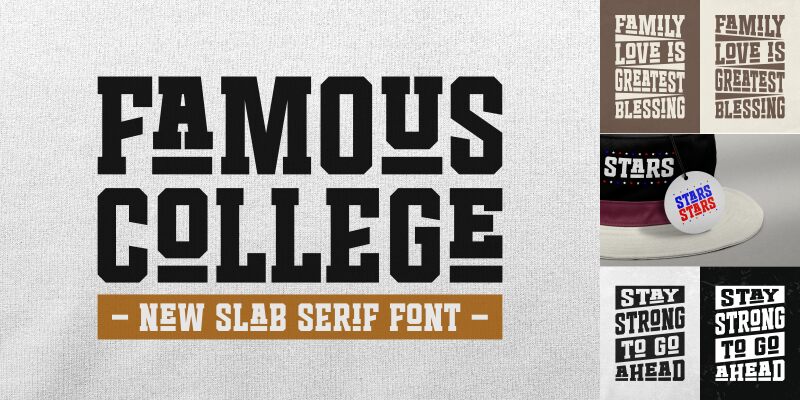
Famous College Italic
Famous College Italic font from the Famous College family exudes a nostalgic charm that harkens back to traditional academic aesthetics. Designed by 7NTypes, this display typeface captures the essence of old-school elegance with its striking italic style.
Its condensed form creates a sense of urgency and dynamism, making it visually appealing while maintaining readability. The bold letters carry a sophisticated flair, perfect for any application needing a touch of classic yet contemporary vibrancy.
Ideal for sports teams, educational institutions, and retro-themed designs, Famous College Italic adds character and distinction to posters, merchandise, and branding materials. Its unique blend of tradition and modernity ensures it stands out in a crowded visual landscape.